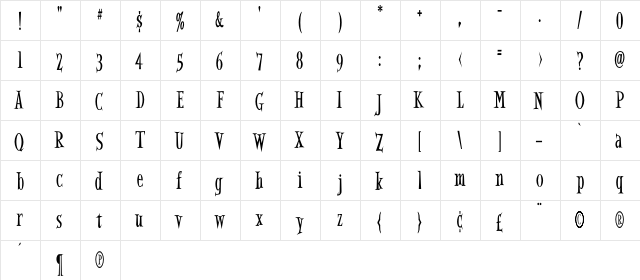
EddieFisher Regular
Design Context for EddieFisher Typeface
EddieFisher offers clean, dependable letterforms without strong stylistic allegiance, making it a practical choice for designers who need flexibility.